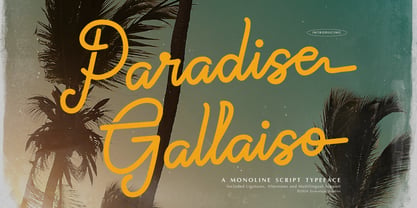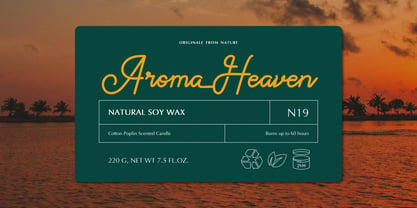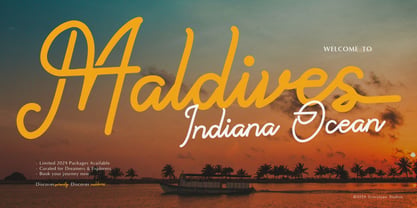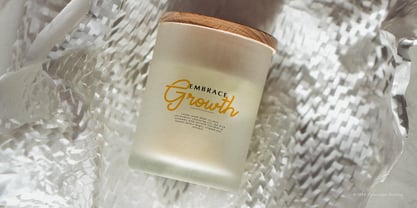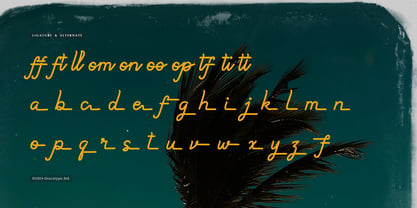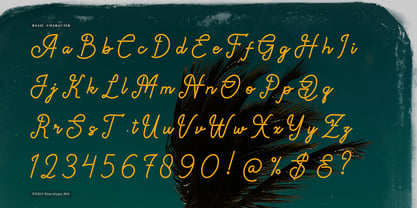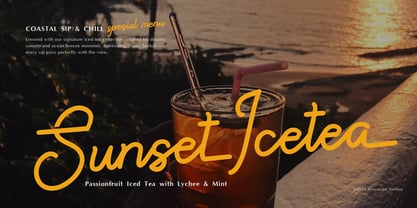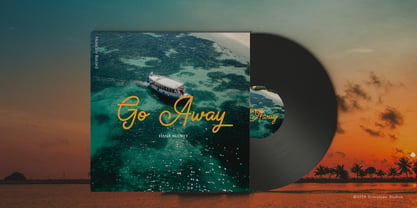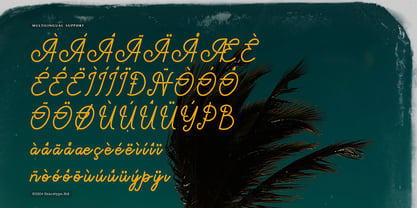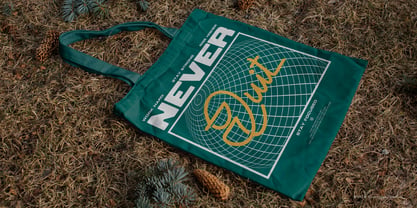
Paradise Gallaiso
by Tini Fitriani
Paradise Gallaiso | Monoline Script Typeface, from Gracetypestudio, suitable for any projects such as: logos, branding projects, homeware designs, product packaging, mugs, quotes, posters, shopping bags, t-shirts, book covers, name card, invitation cards, greeting cards, label, photography, watermark, special events, and all your other lovely projects that need a Monoline Script font taste.
• Regular and Italic
• Standard glyphs
• Alternate and Ligature
• Fonts include multilingual support